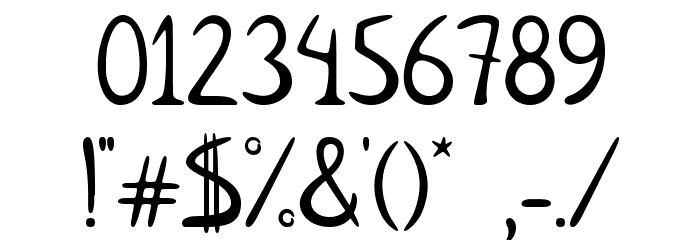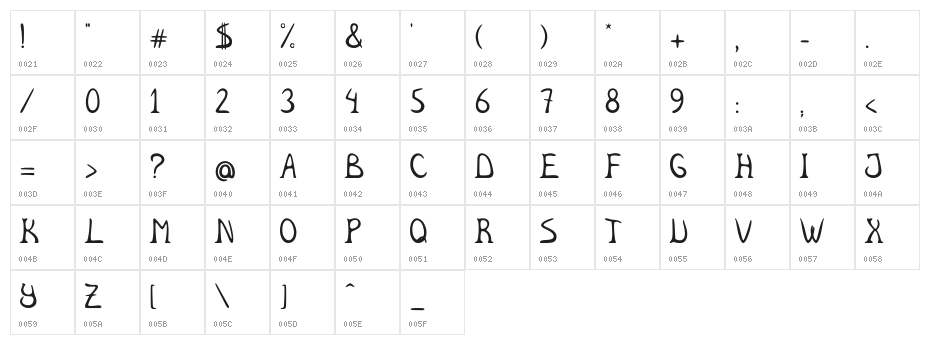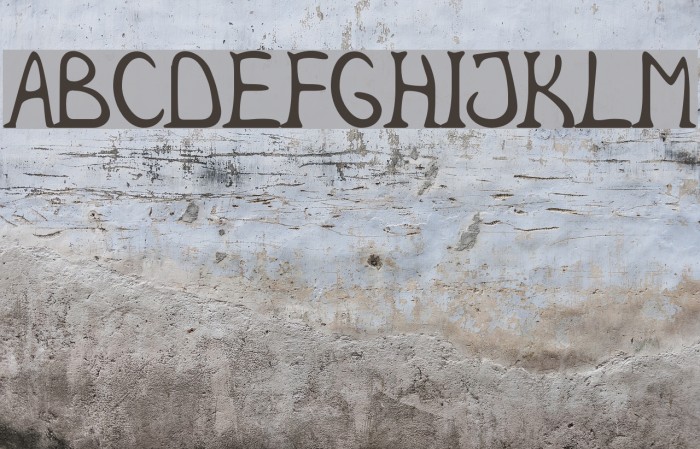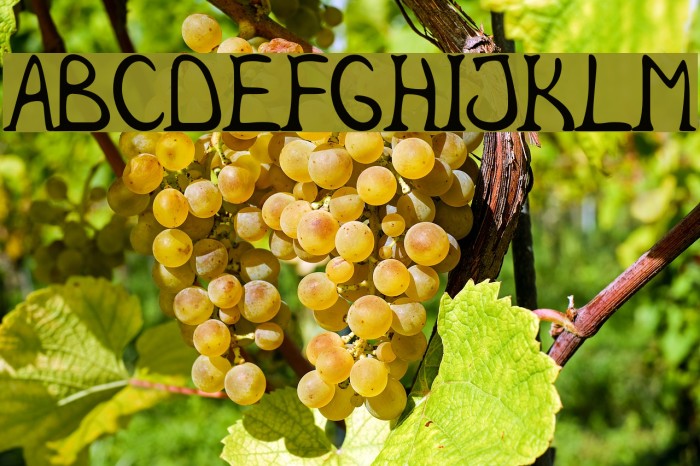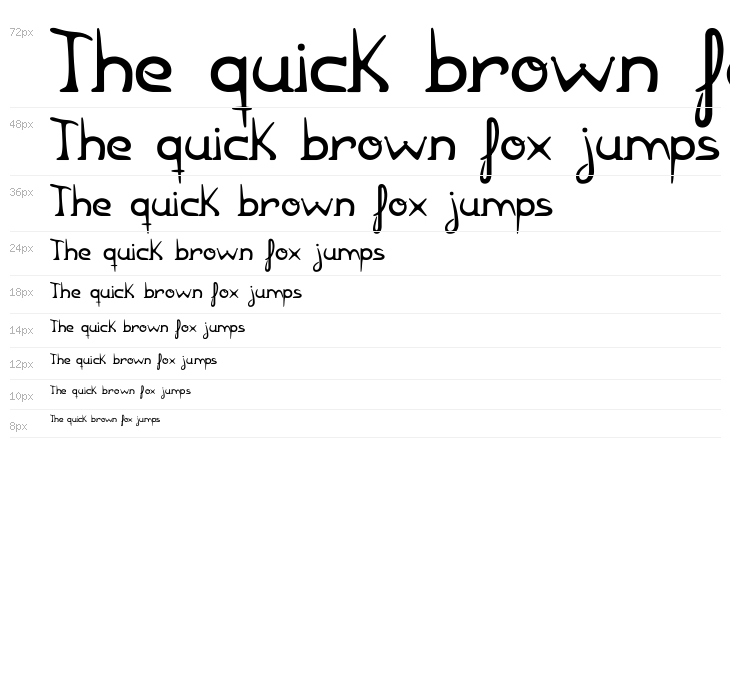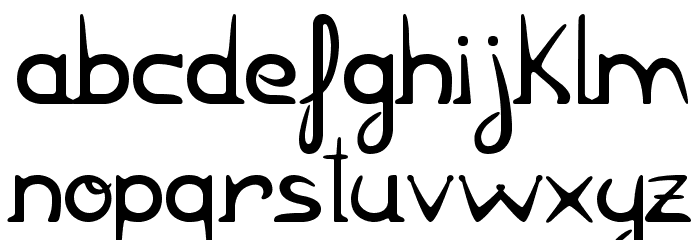
caracol Font
caracol Description
This font features a playful and whimsical design, characterized by its irregular and flowing letterforms. The uppercase letters have a unique, hand-drawn quality with varying stroke widths that add a sense of movement and energy. The lowercase letters continue this theme with a slightly more condensed appearance, maintaining the playful aesthetic. The numerals are bold and distinctive, matching the overall style of the alphabet. Special characters are creatively integrated, enhancing the font's artistic appeal. This font is ideal for projects that require a fun and informal touch, such as children's books, creative posters, or playful branding.